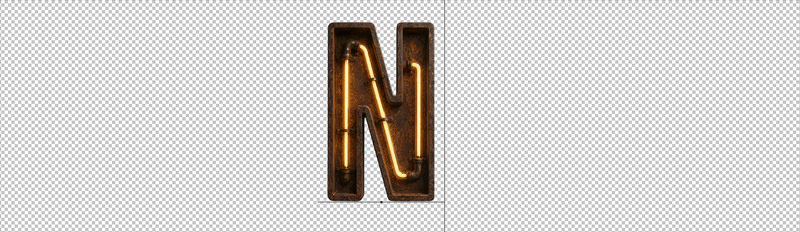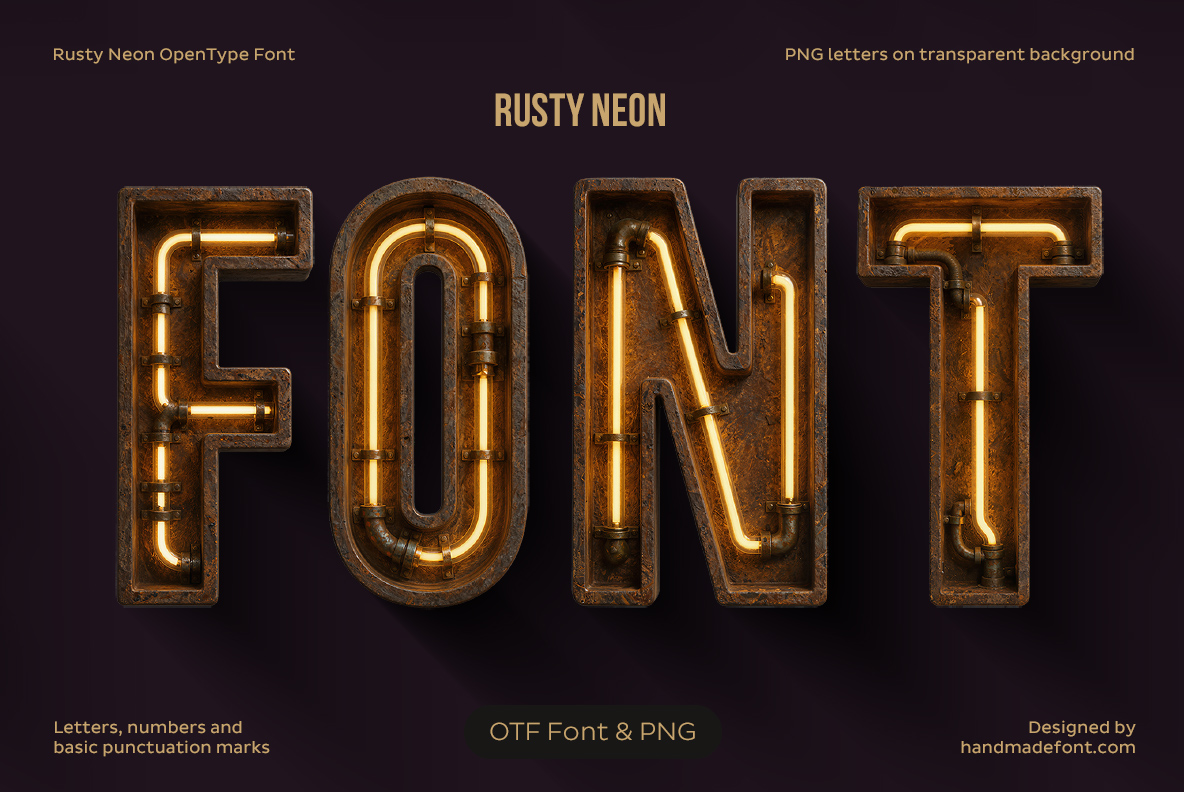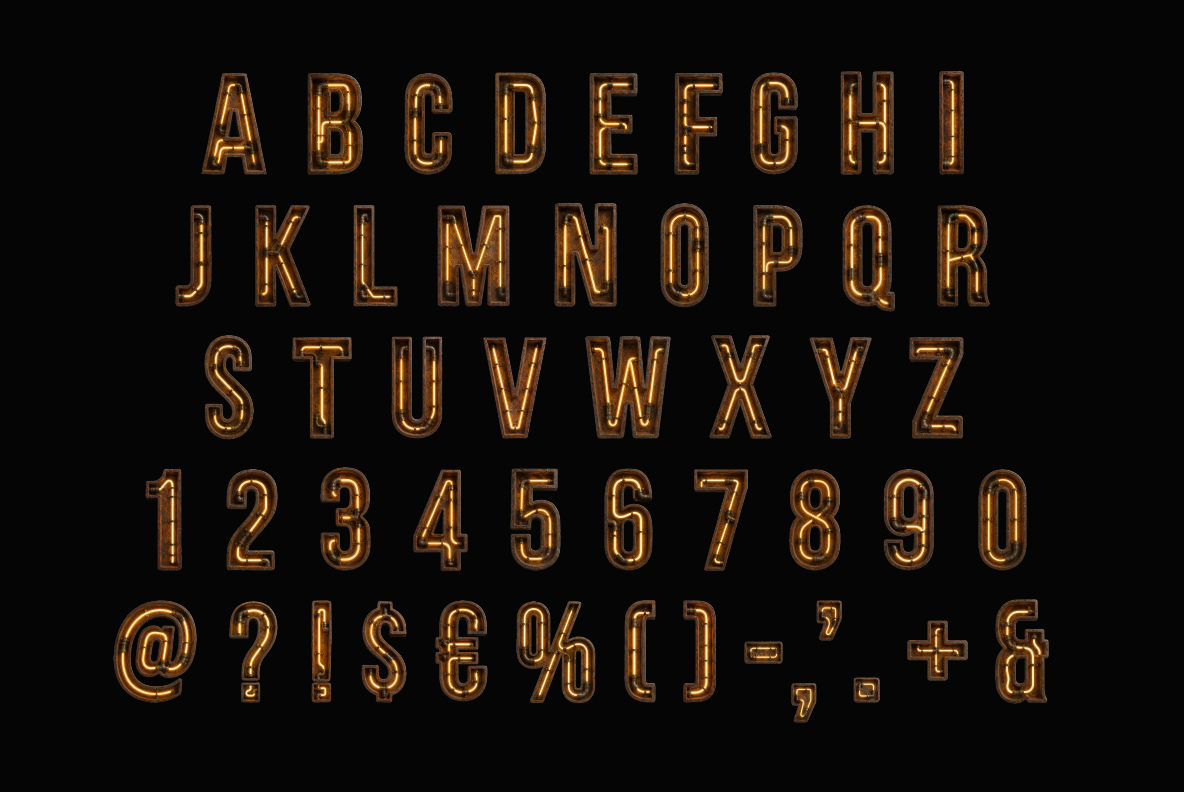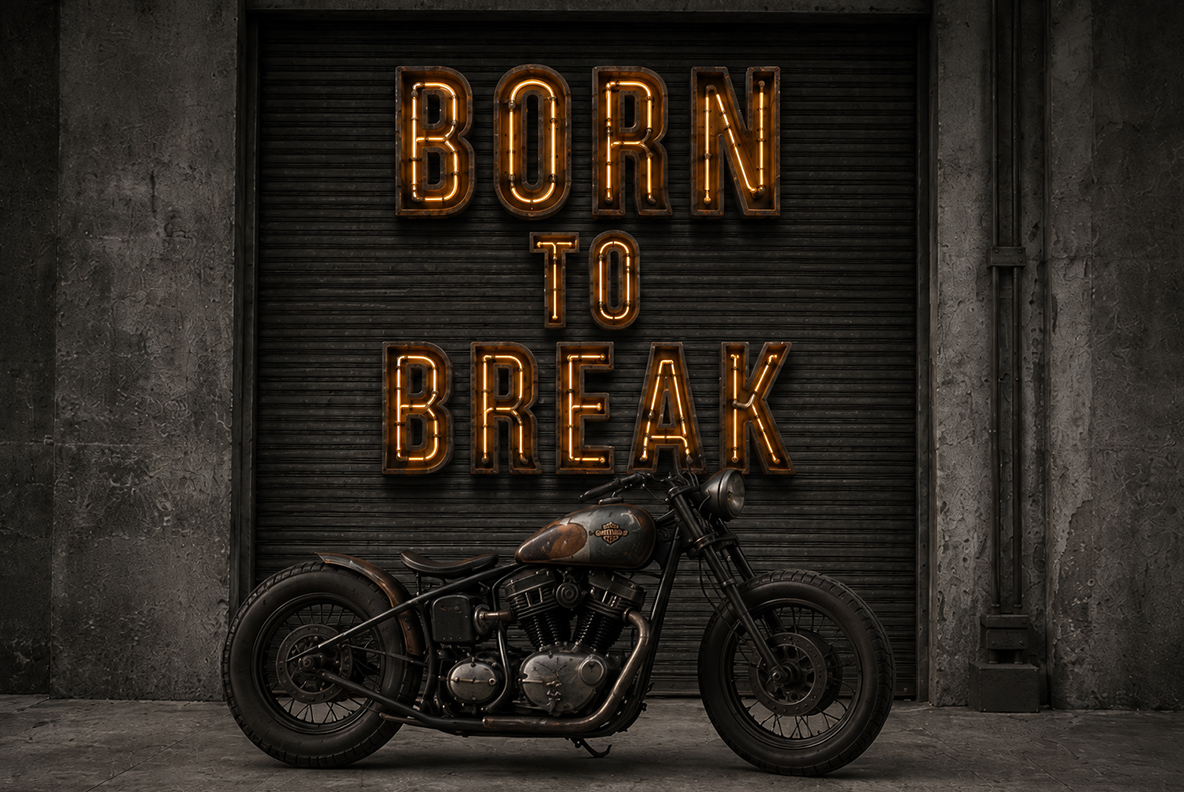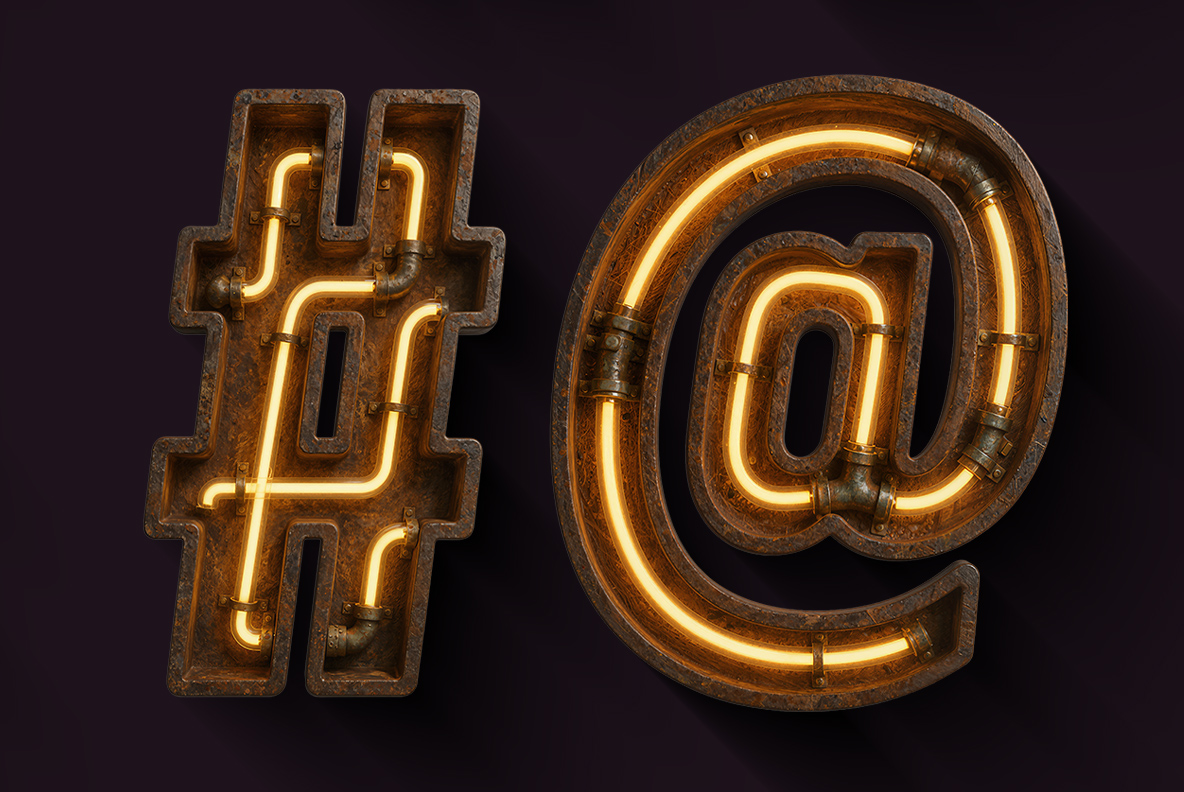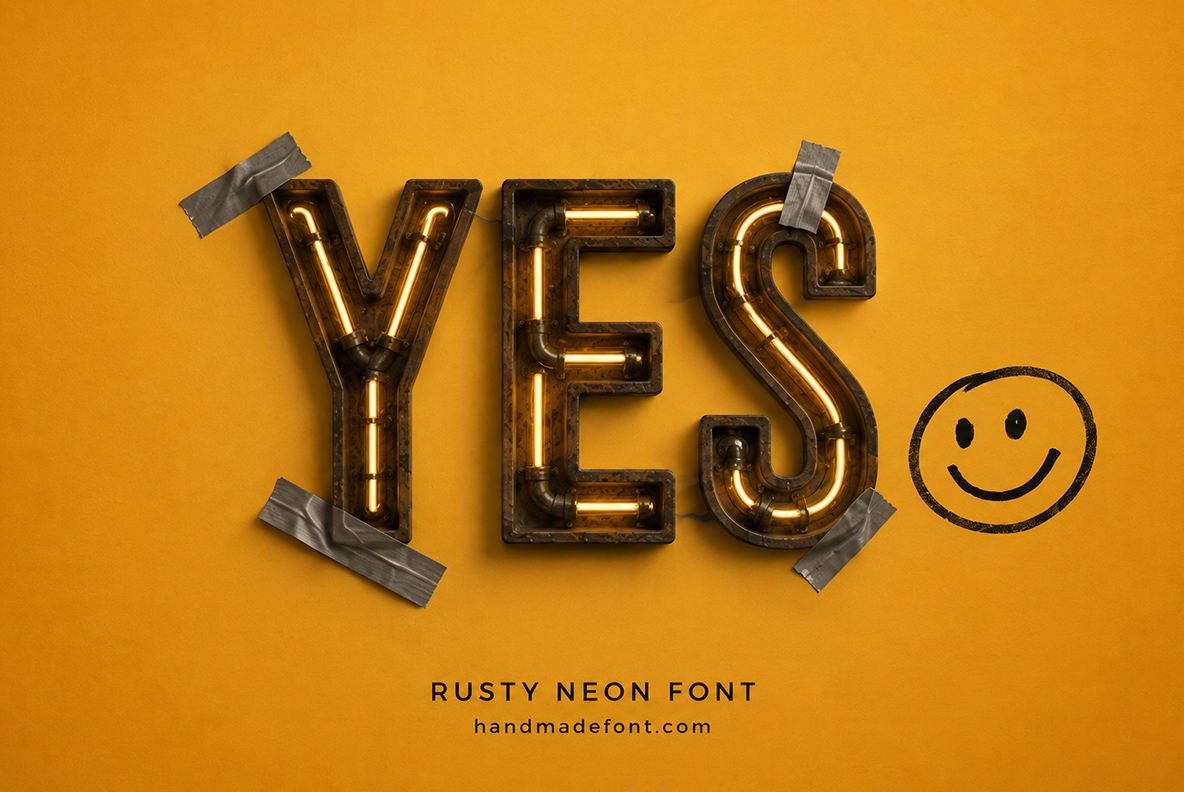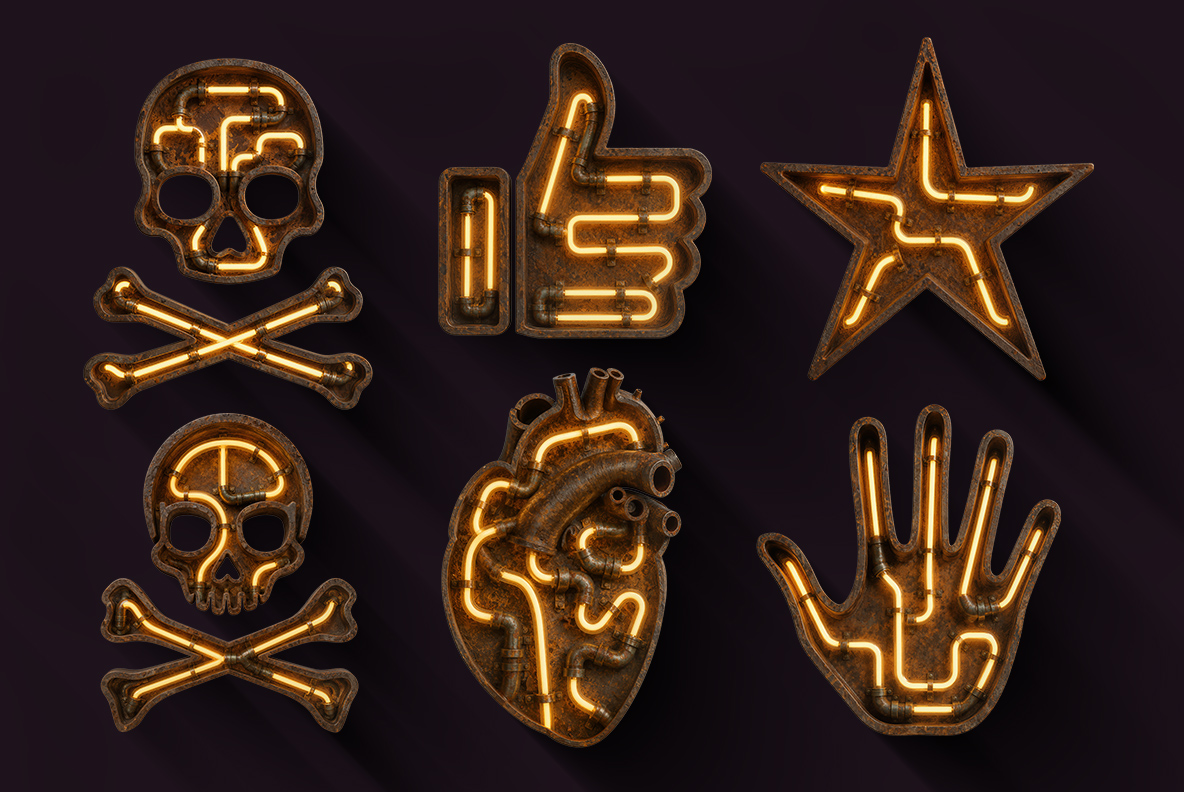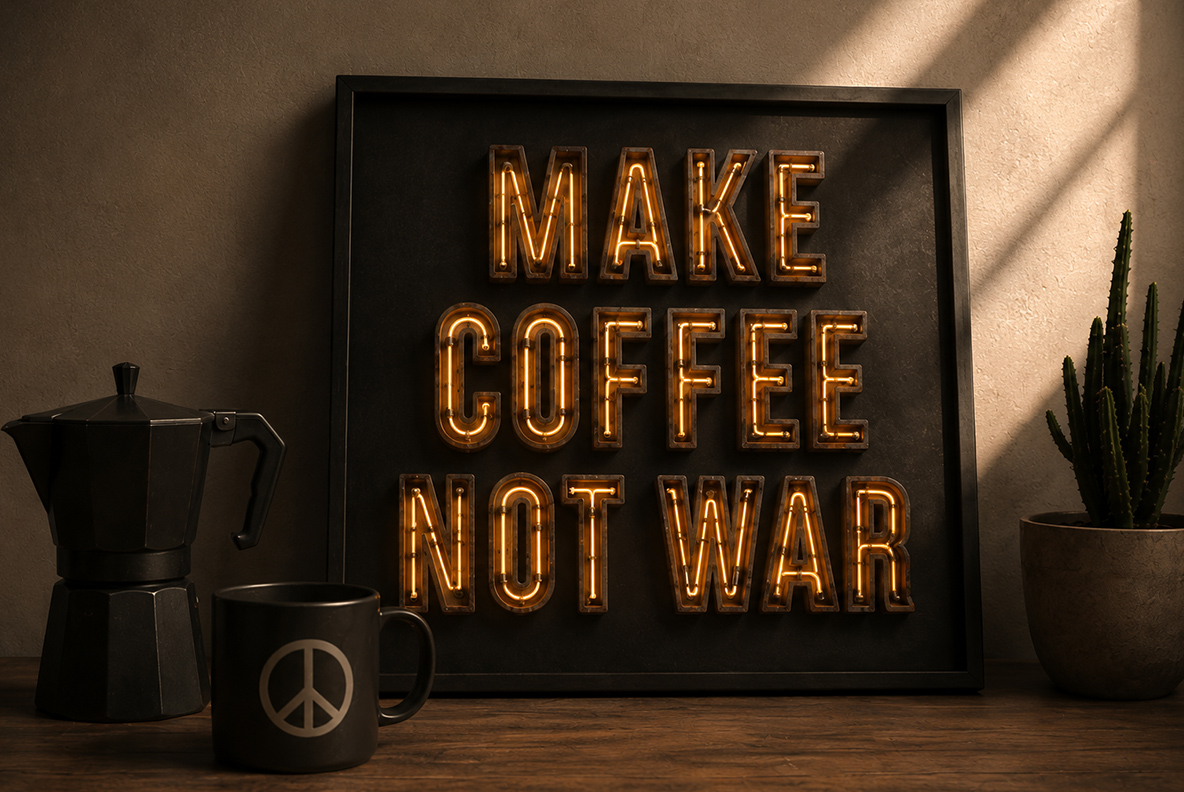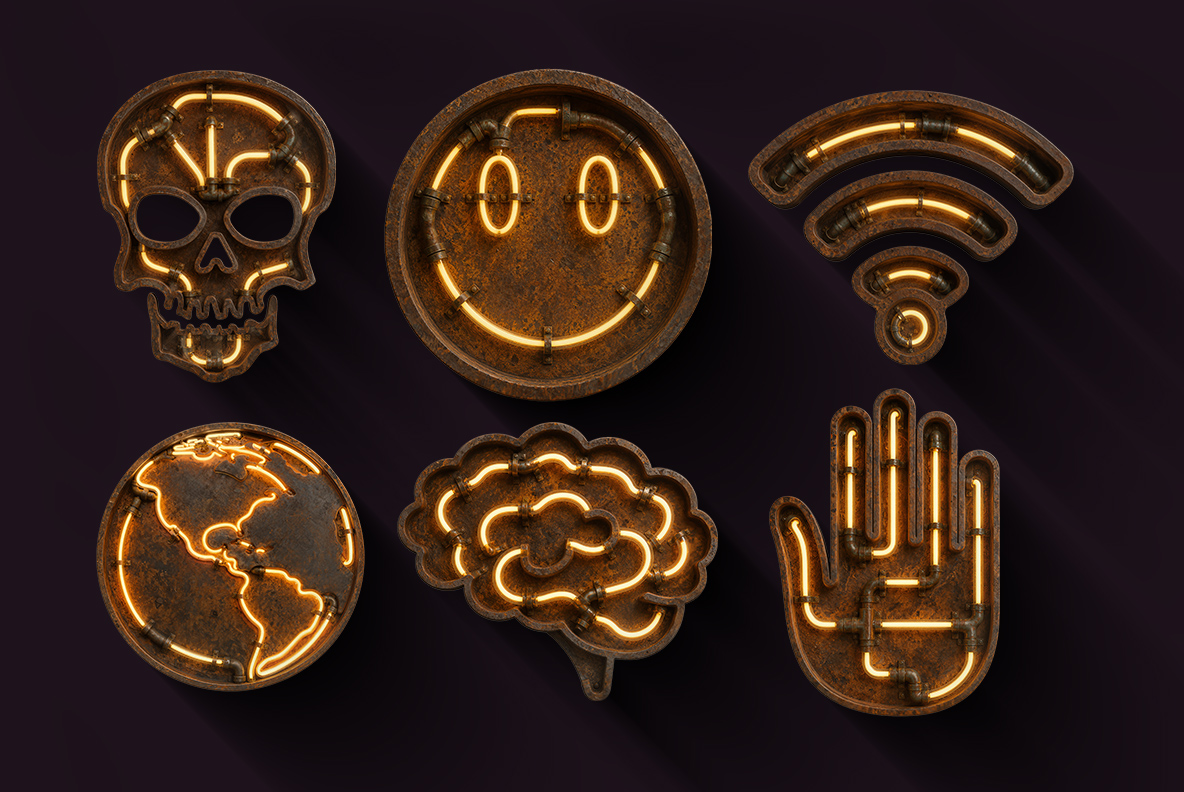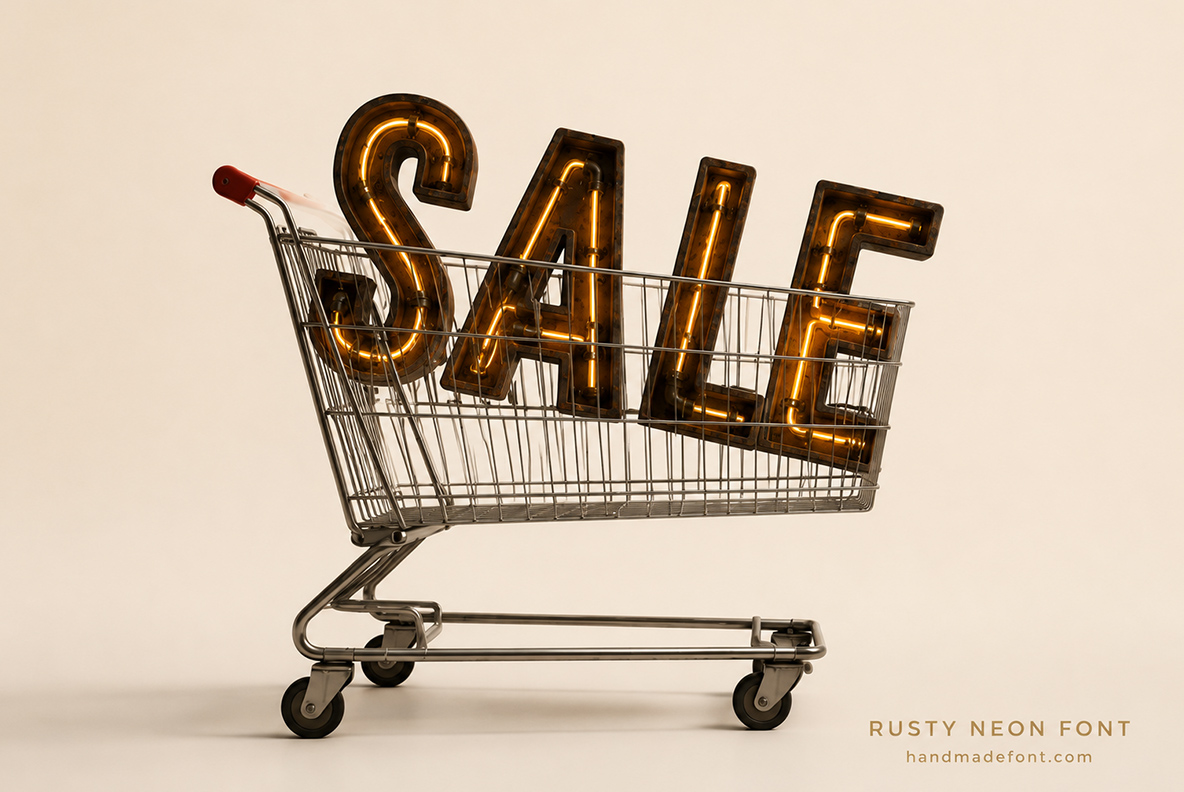
Rusty Neon Font. Industrial grit meets glowing light!
Letters built as weathered metal sign boxes with a warm amber tube burning inside — pitted rust on the face, pipe clamps gripping every bend, glass joints breaking the light into segments. The set also ships a run of sign icons: skulls, a heart, a star, arrows, a brain and several hands. It suits bars, garages, tattoo studios and gig posters.
Rust on the outside, glow on the inside
Each letter is, in effect, a metal sign box left outside for years. The face is pitted and orange with corrosion, so the surface never reads as clean. Inside the channel, though, a warm amber tube still burns. And that contrast is the whole idea: dead metal, live light. Because the glow spills onto the rust, the colour also warms up around every stroke.
Pipe clamps, weld seams and a warm amber tube
Look closely, meanwhile, and you will find real hardware. Small pipe clamps grip the tube where it bends, while short brackets hold it off the back plate. Weld seams run along the box edges too. The tube itself has visible glass joints, so the light breaks into segments rather than one even line. Even the electrode ends are there, of course, tucked into the corners.
Animated preview showing letters of the Rusty Neon Font being typed.
Rusty Neon Font after dark and in daylight
On black, naturally, the Rusty Neon Font behaves like a sign at night. Below, then, it runs across a garage shutter, a roadside billboard, a magazine spread and a black tee. Against pale walls, however, it switches to a daytime object with a cast shadow. Besides bars, it suits tattoo studios, garages, motorcycle brands and gig posters. So print it warm and dark, since the amber needs somewhere to sit.
Icons, glyphs and the Rusty Neon Font files
Dark cover artwork spelling FONT in glowing rusted sign boxes of the Rusty Neon Font.
Letters, numerals and symbols of the Rusty Neon Font glowing on black.
Garage shutter mockup with a three-word sign set in the Rusty Neon Font.
Hash and at sign showing the rusted housing and tube of the Rusty Neon Font.
Yellow wall scene with three taped letters from the Rusty Neon Font.
Six glowing sign icons including skulls, a star and a hand from the Rusty Neon Font.
Framed wall sign with a three-line message set in the Rusty Neon Font.
Six more glowing sign icons including a heart, arrows and a skull from the Rusty Neon Font.
Large dusk billboard with a three-word headline in the Rusty Neon Font.
Six glowing icons including a smiley, a globe and a brain from the Rusty Neon Font.
Dark studio scene with the word NEON reflected, set in the Rusty Neon Font.
Shopping trolley holding glowing sale letters from the Rusty Neon Font.
Black t-shirt back print with a three-word phrase in the Rusty Neon Font.
Open magazine spread with a three-line headline set in the Rusty Neon Font.
Cream poster leaning on a wall with a three-line title in the Rusty Neon Font.
Pale wall with the word SIGN mounted in glowing letters of the Rusty Neon Font.
Letters A to D and numerals 1 to 4 of the Rusty Neon Font on a transparent background.